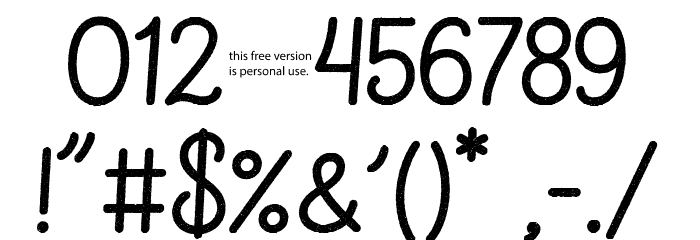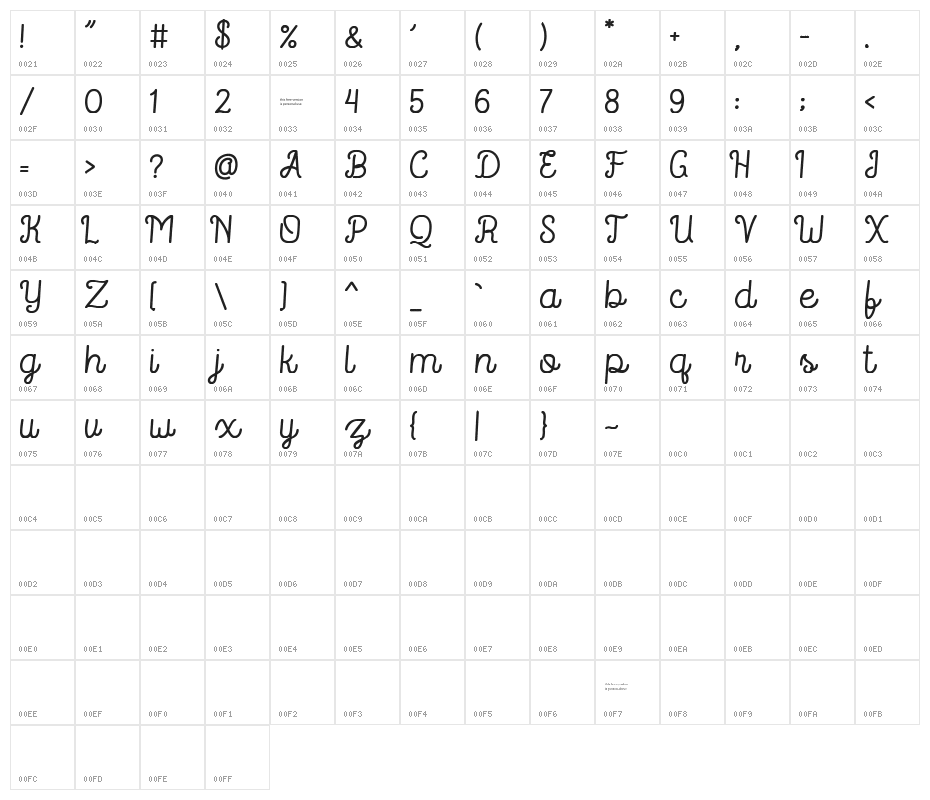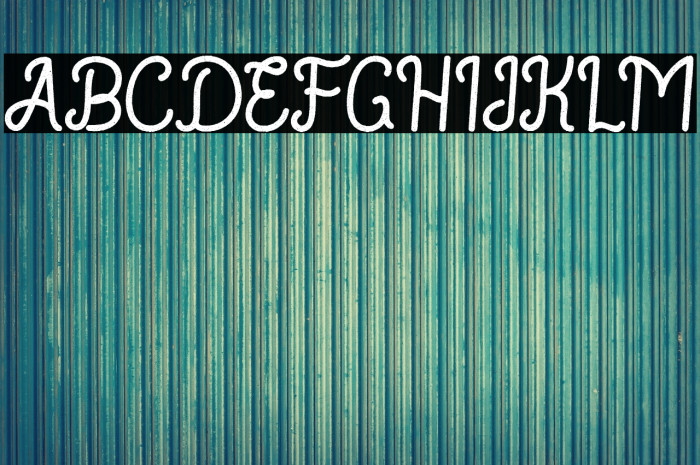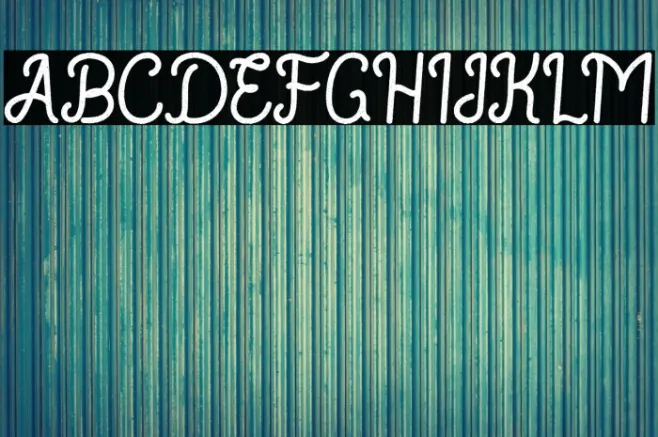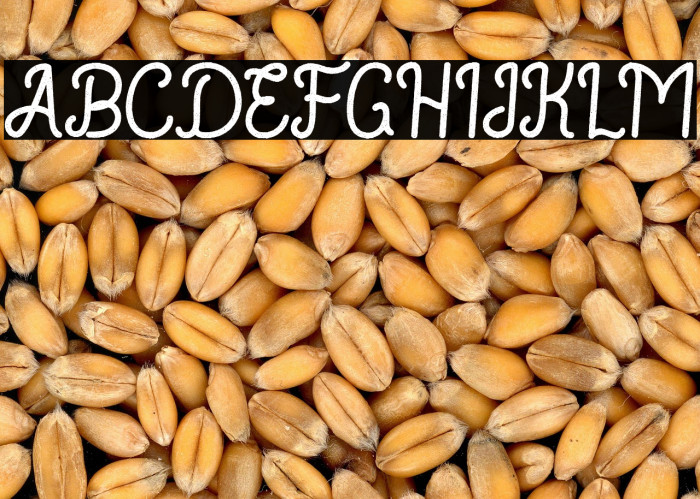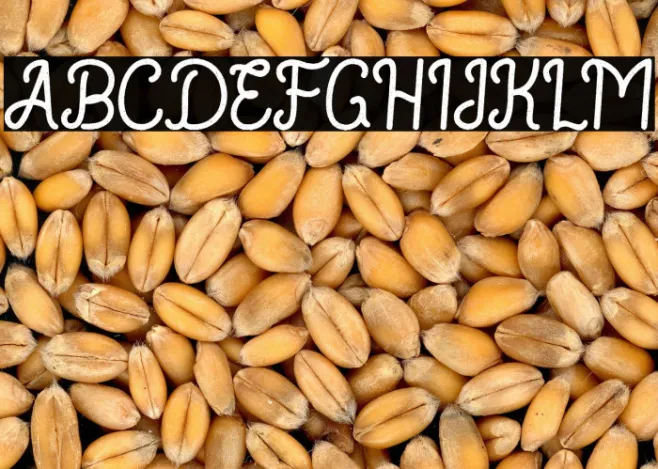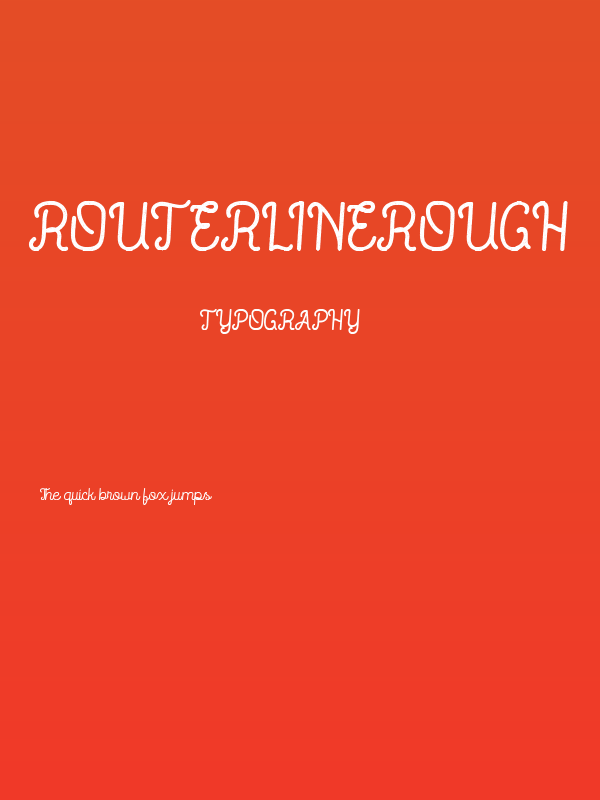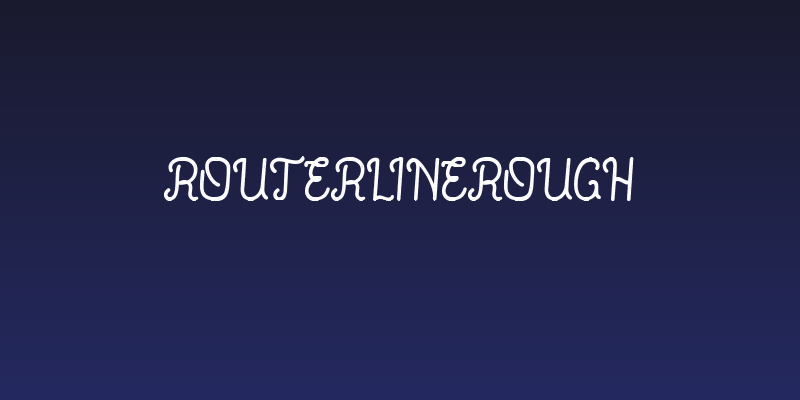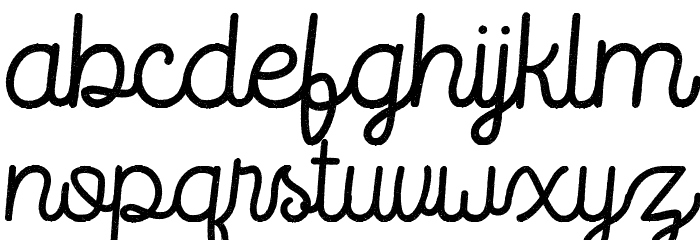
RouterlineRough Font
RouterlineRough Description
This font features a playful and casual script style with a hand-drawn appearance. The uppercase and lowercase letters are characterized by smooth, flowing curves and a consistent stroke width, giving it a cohesive and friendly look. The numerals and special characters maintain this style, ensuring uniformity across all glyphs. The font's informal and approachable design makes it suitable for projects that require a personal touch. Its legibility is enhanced by the clear distinction between characters, despite the script style. The overall aesthetic is both modern and whimsical, making it versatile for various creative applications.
| Overall Style | Whimsical, Modern |
| Proposed Projects | Ideal for greeting cards, invitations, personal branding, and playful logos. |